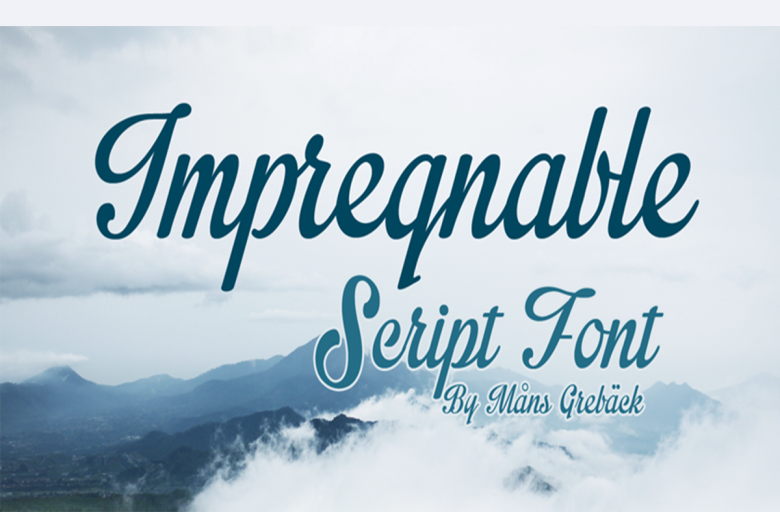
Impregnable Font
High quality script font with multilingual support and a large number of special characters. Designed by Måns Grebäck, this hand-crafted typeface works great in logotypes and for titles and slogans.
Impregnable Handwritten Font